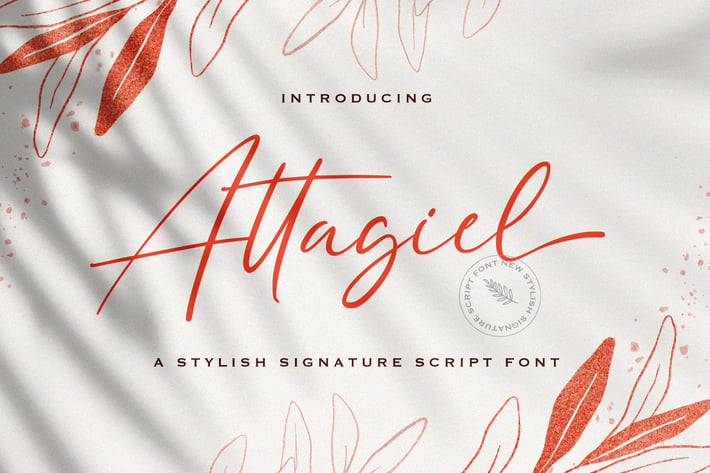
Attagiel - Handwritten Font
Introducing Attagiel - Handwritten Font
Attagiel is a delicate, elegant and flowing handwritten font. It has beautiful and well balanced characters and as a result, it matches a wide pool of designs. Add it to your most creative ideas and notice how it makes them come alive!